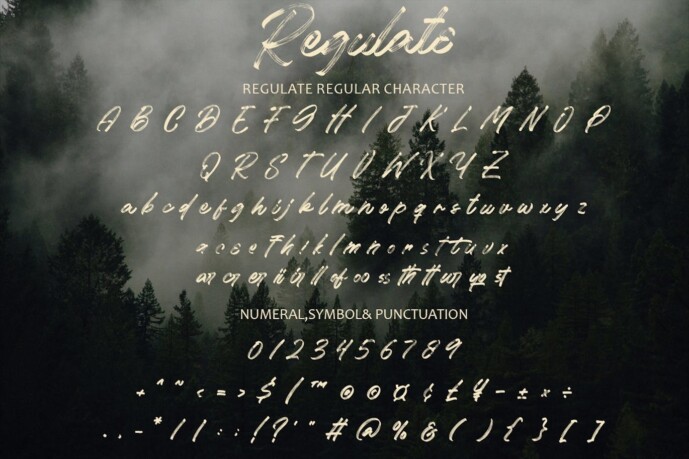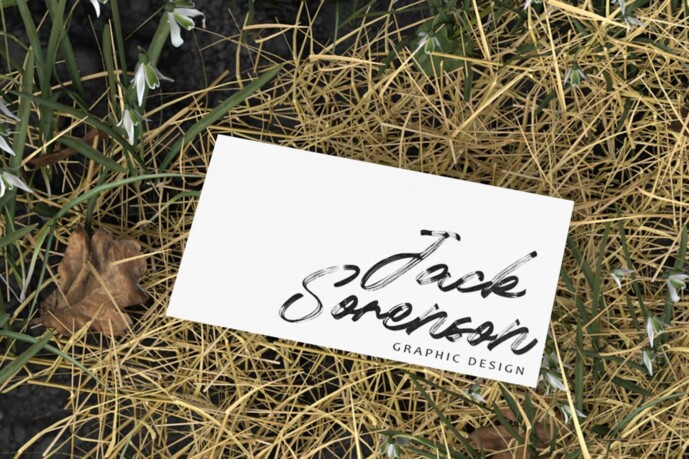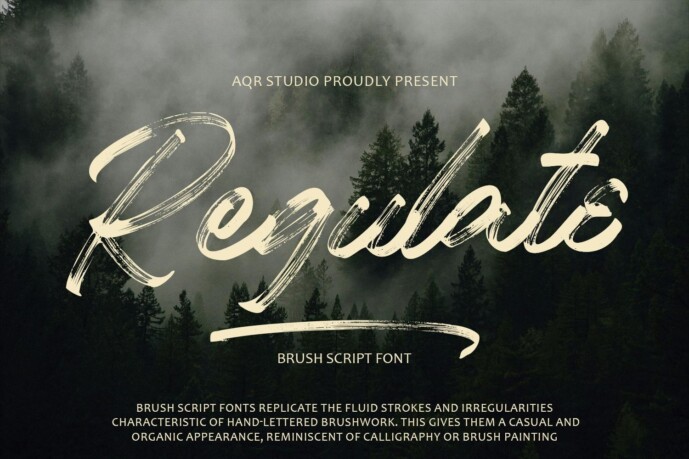
Regulate Font
Designer: aqrstudio
Regulate Font is hand lettering with a bonus brush pen and Swash. This font is a great combination for any product and business. Comfortably set Brush font for vintage design, classic design, photography, branding design, t-shirts and many more.